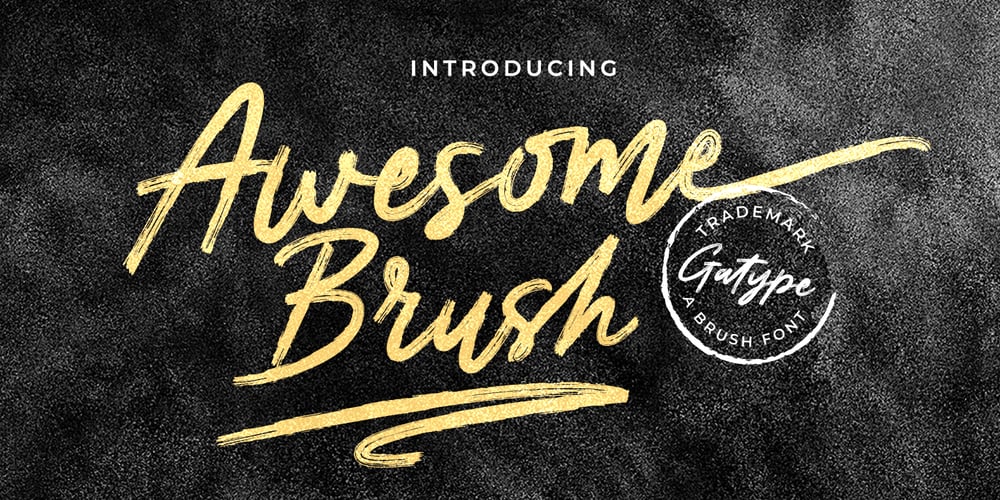
Awesome Brush Font Family was designed by khaidir and published by Gatype. Awesome Brush contains 2 styles and family package options. Awesome Brush is a unique textured brush font, because this brush font is made digitally. contemporary approach to design, and has underlines and also has several ligatures.Suitable for use in title designs such as tittle books, stationery designs, quotes, branding, logos, clothing, invitations, greeting cards, t-shirts, packaging designs, posters and more.